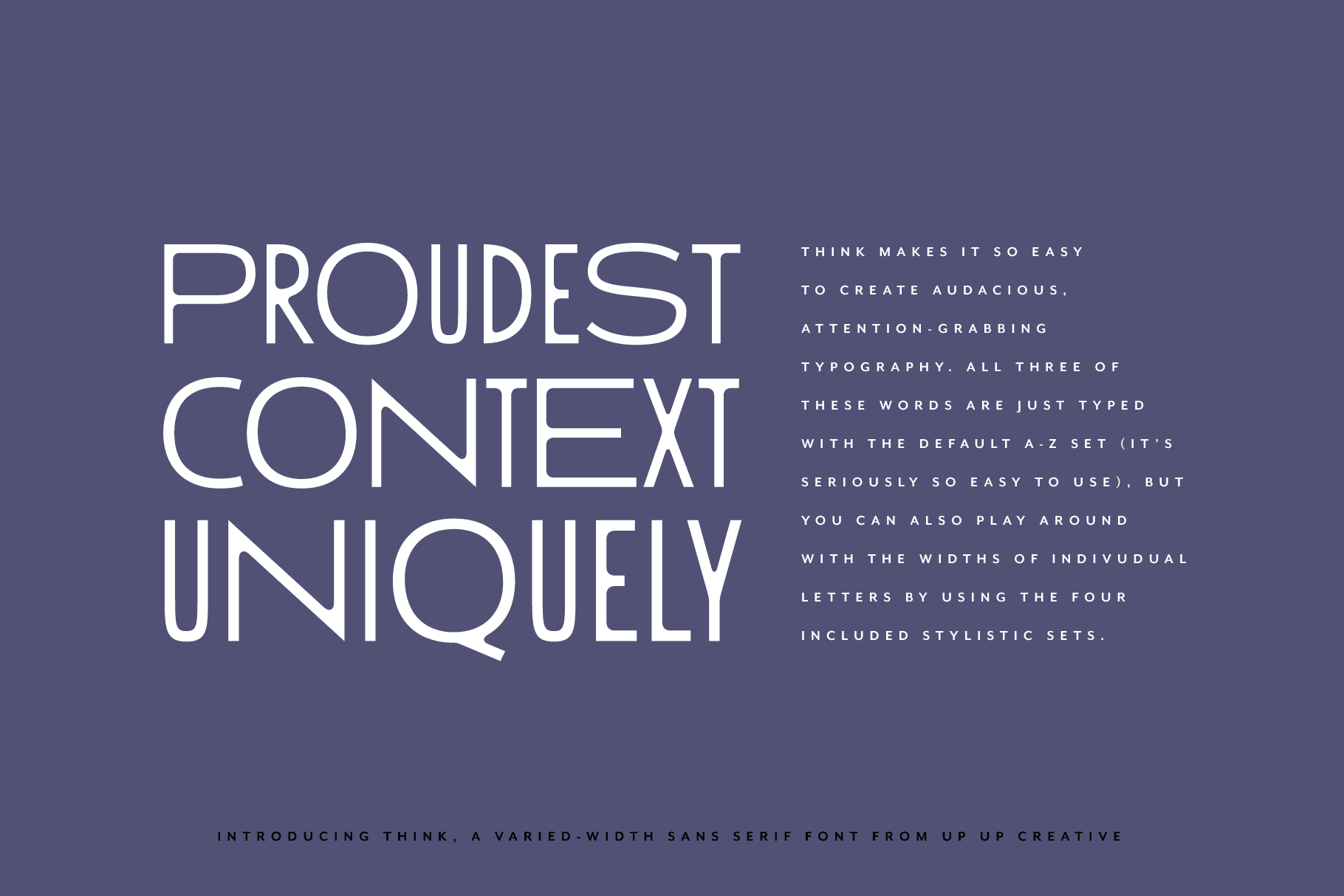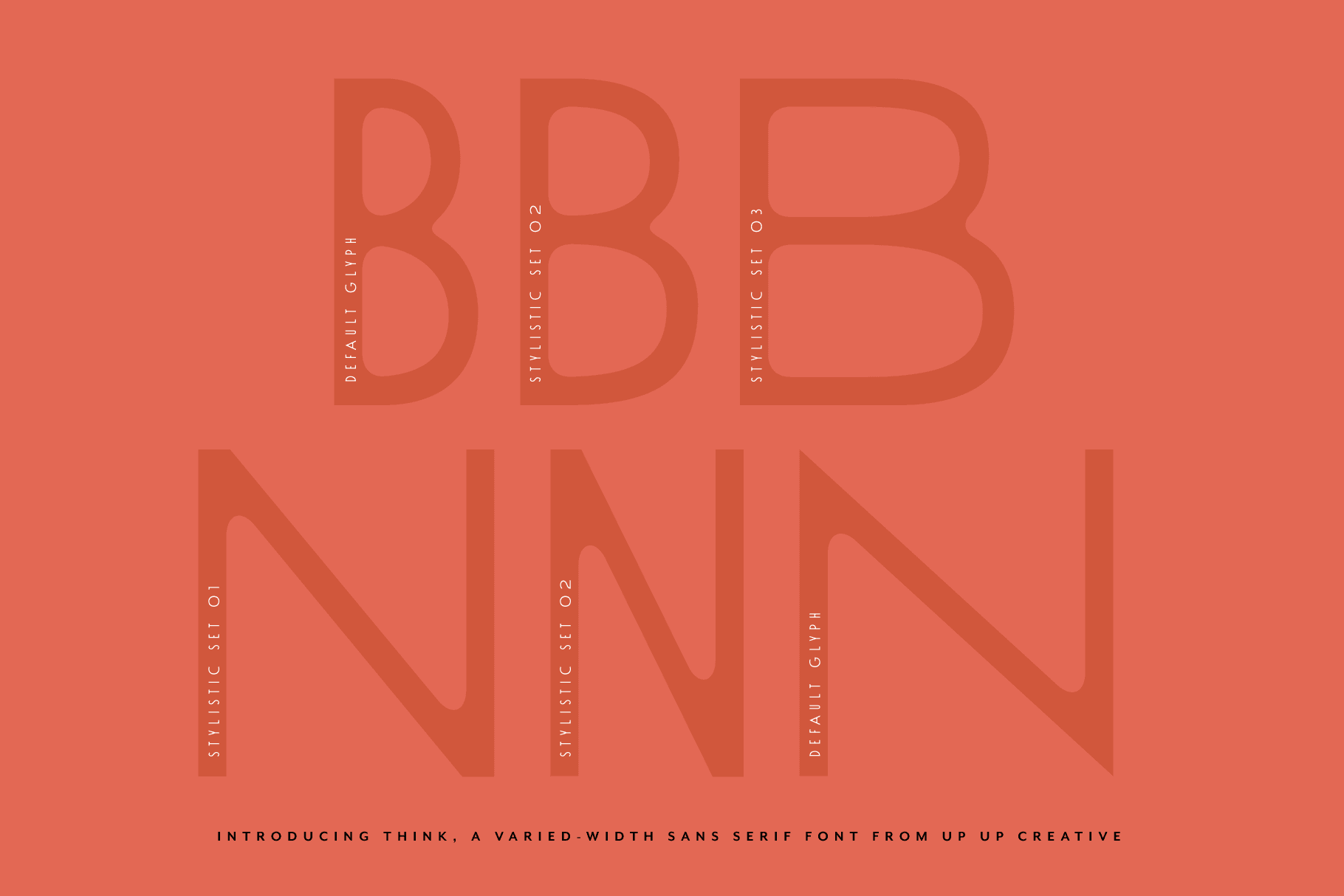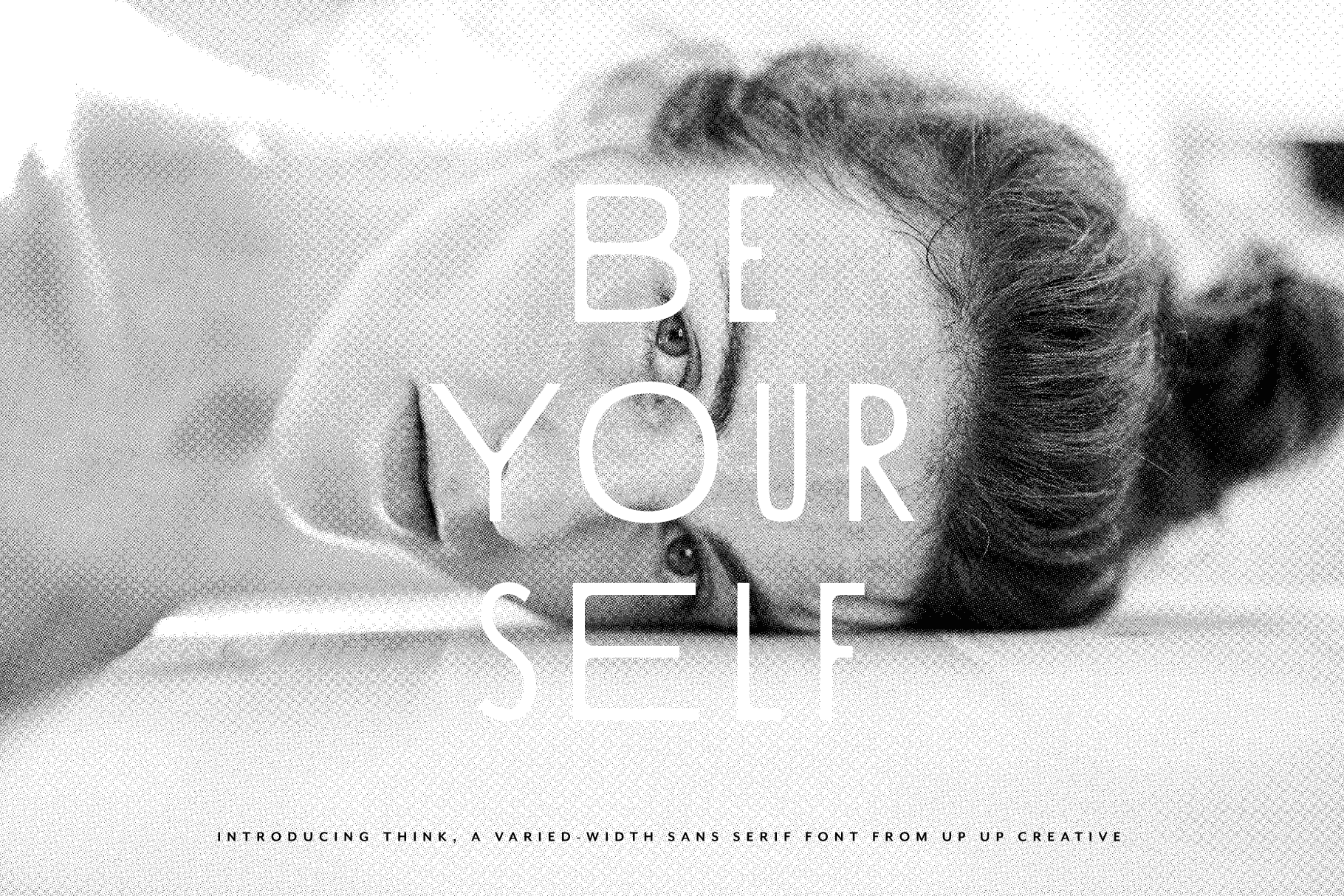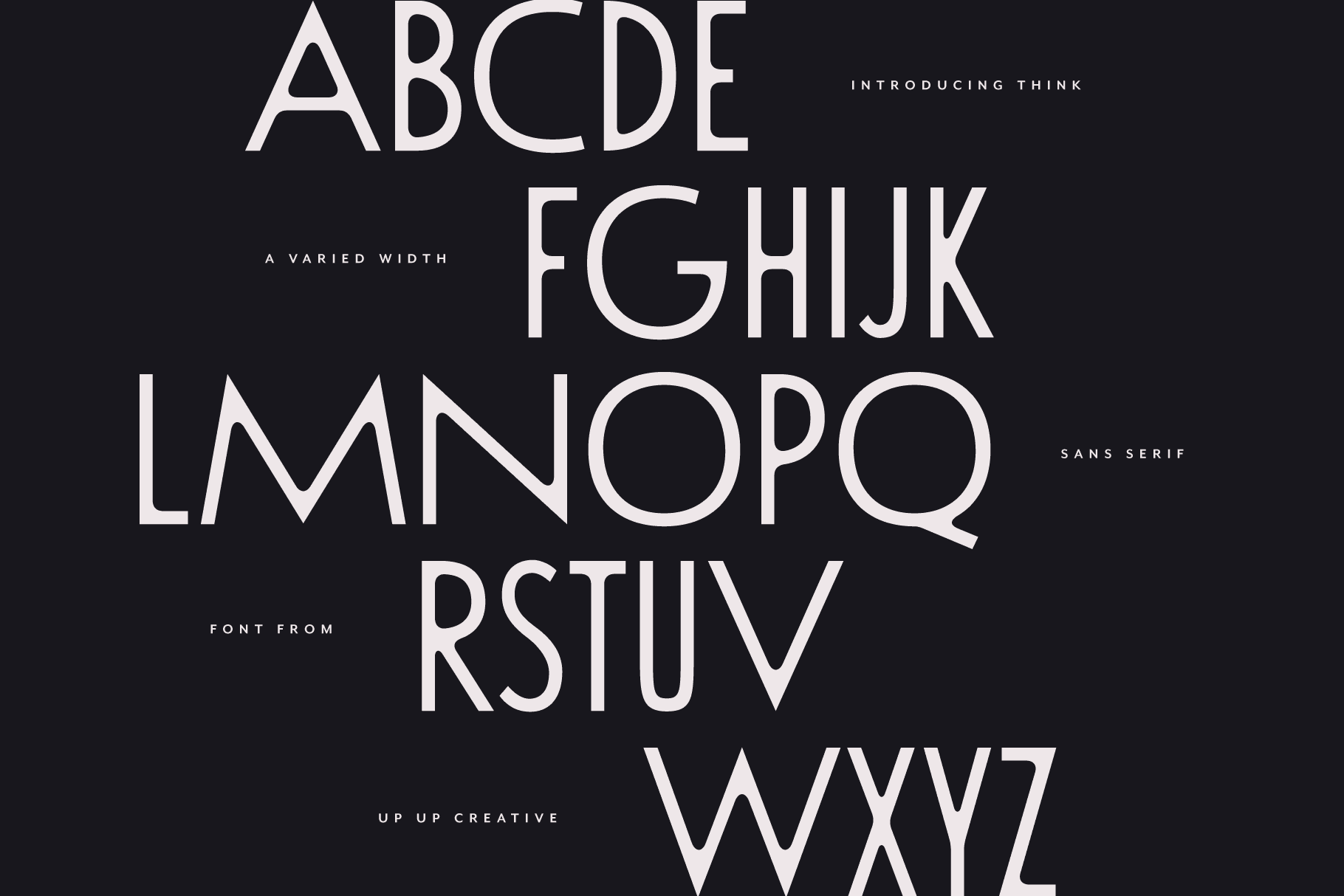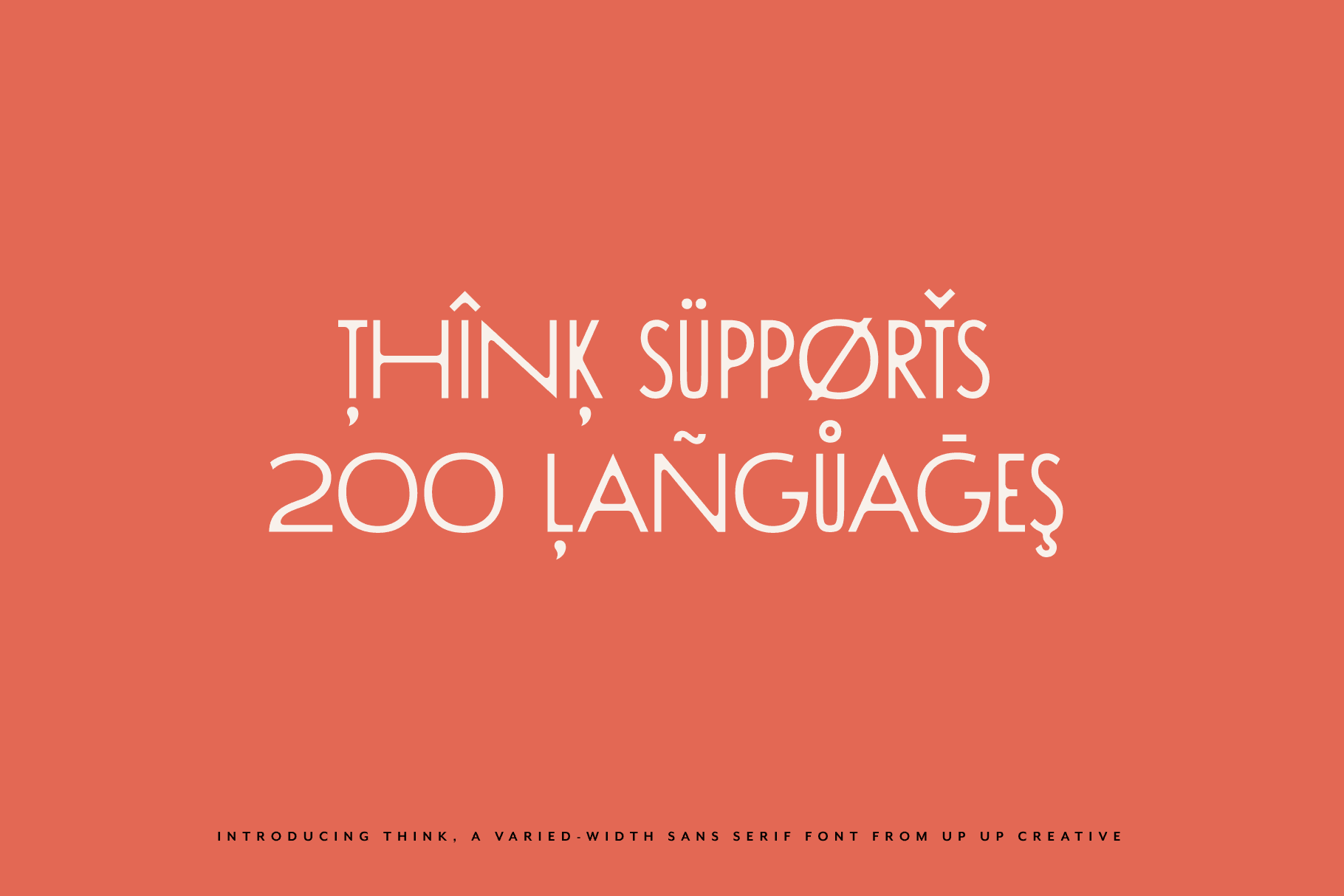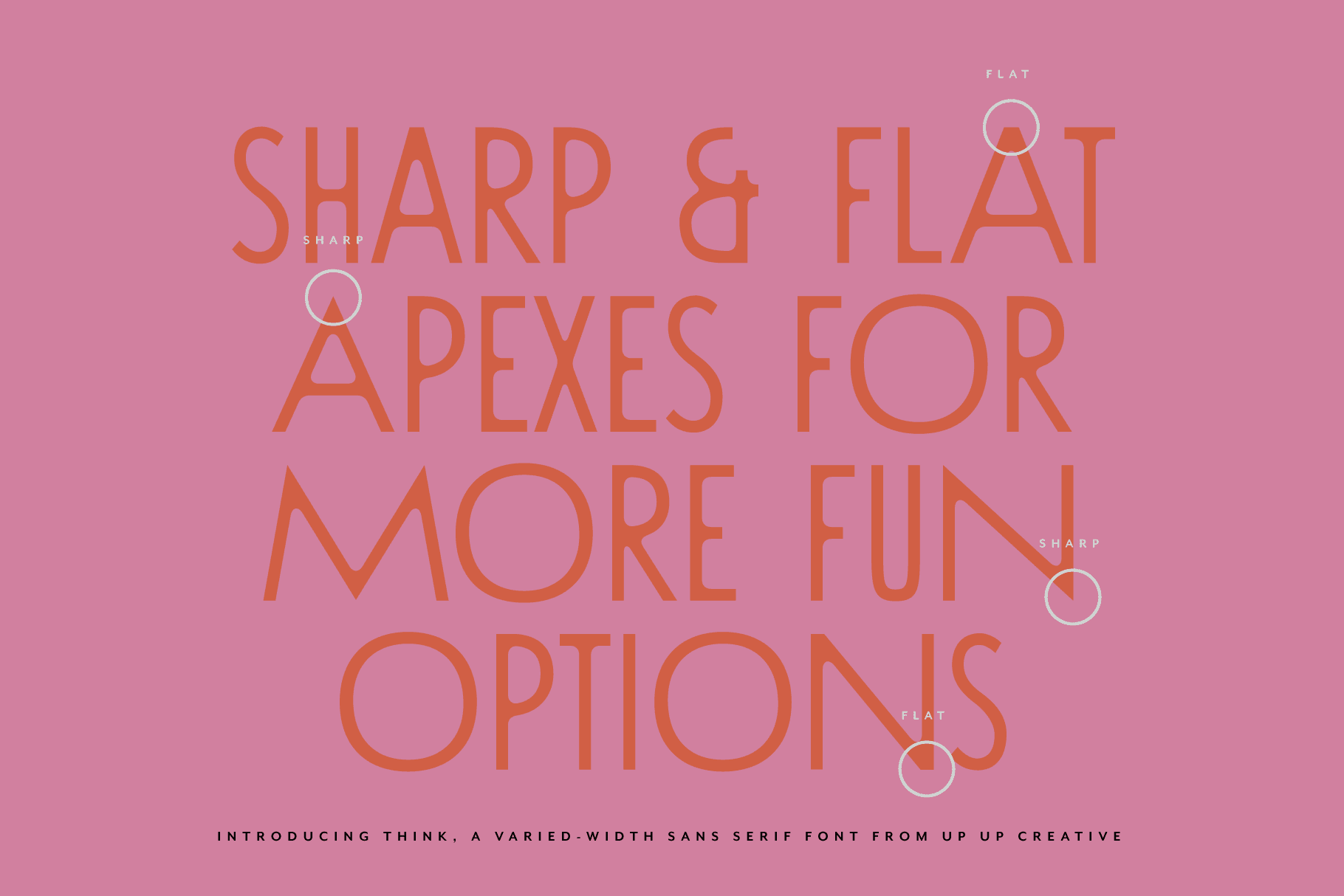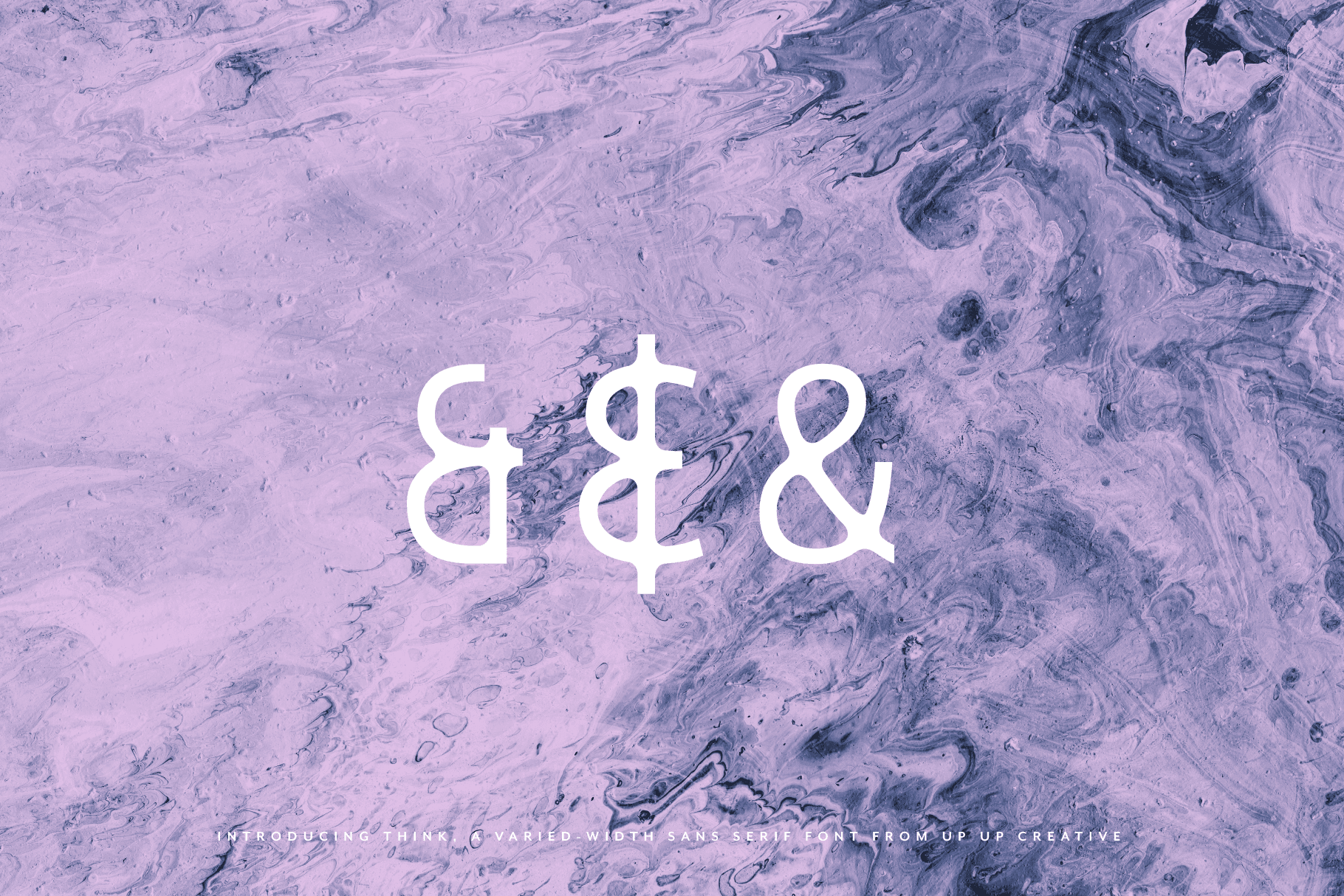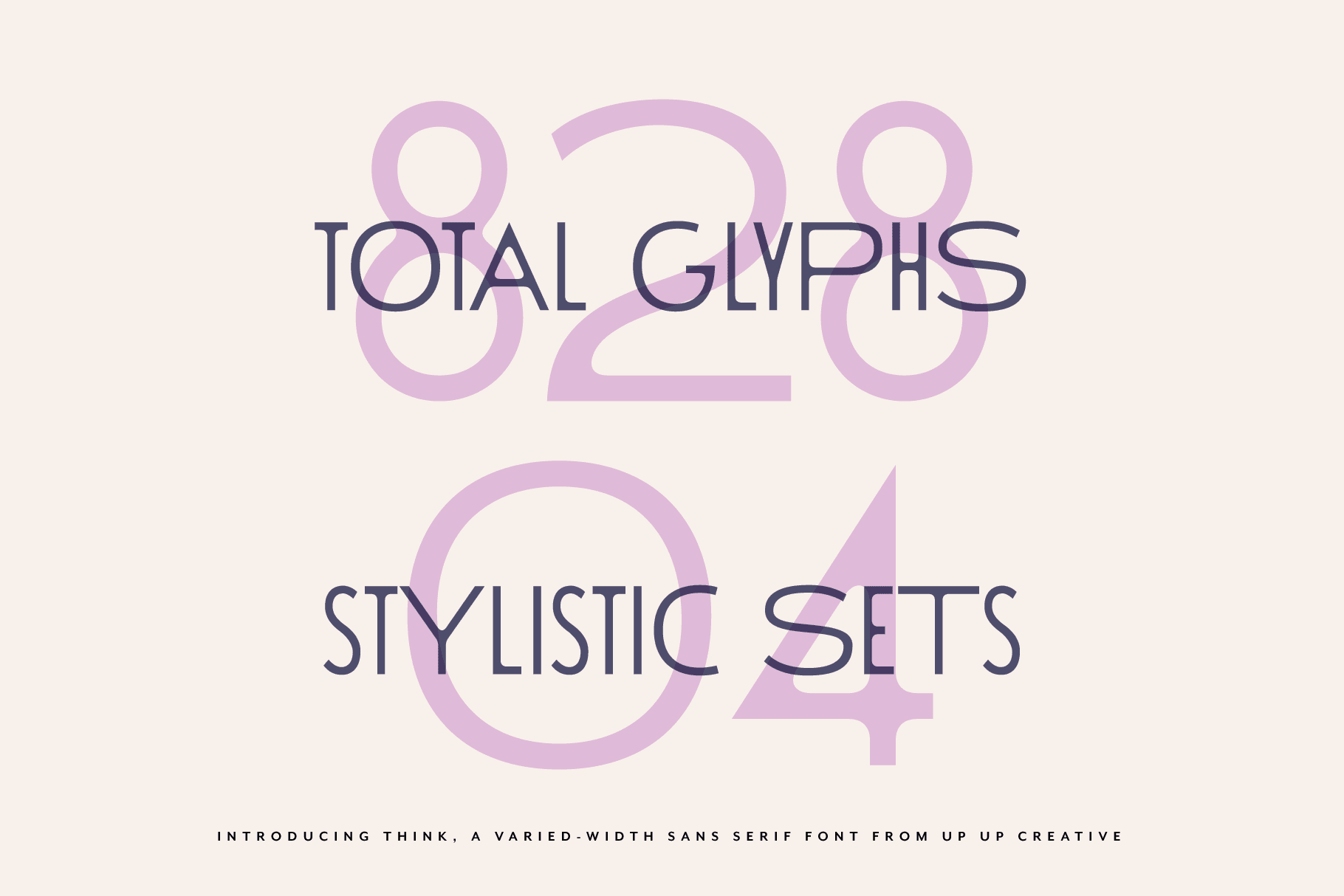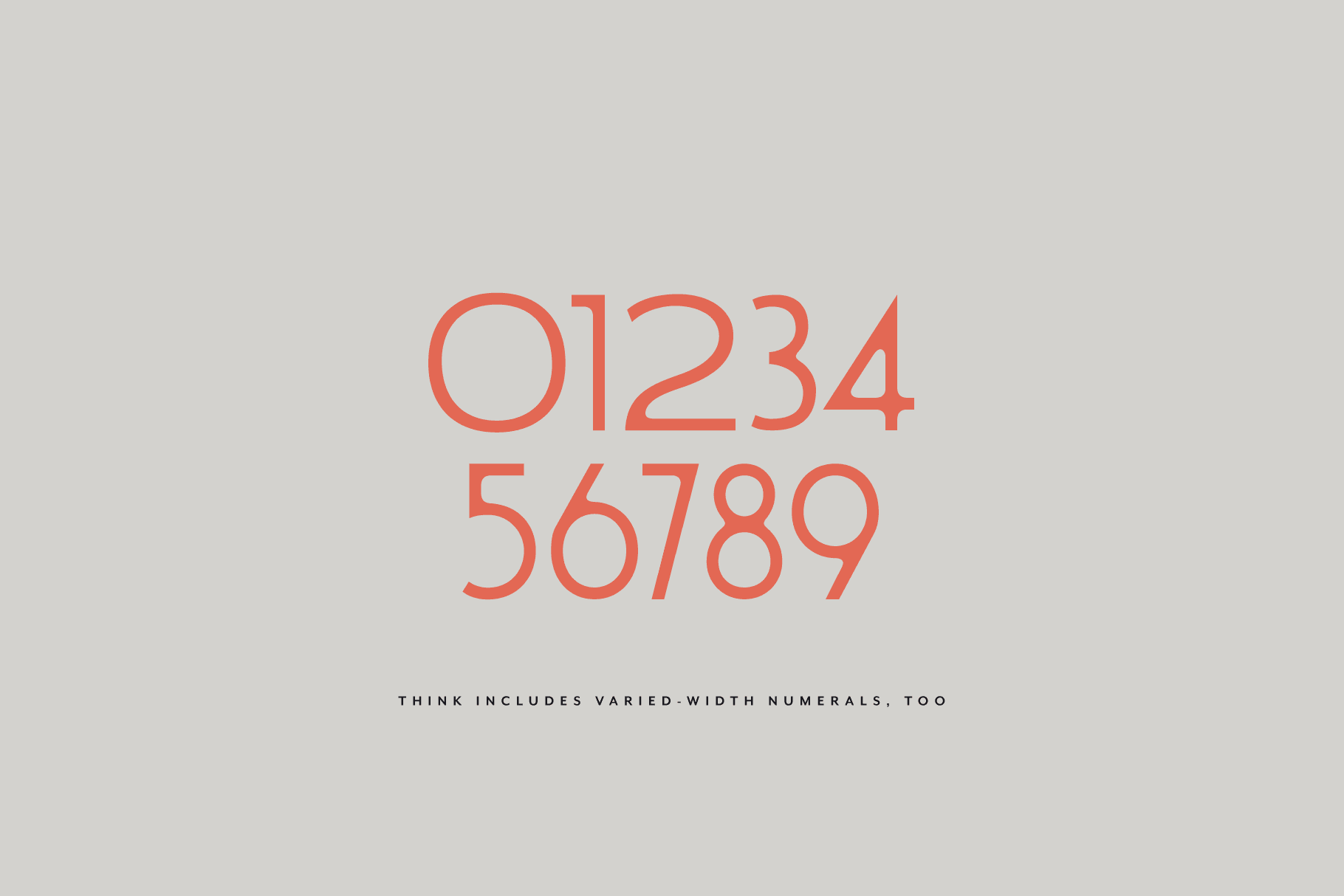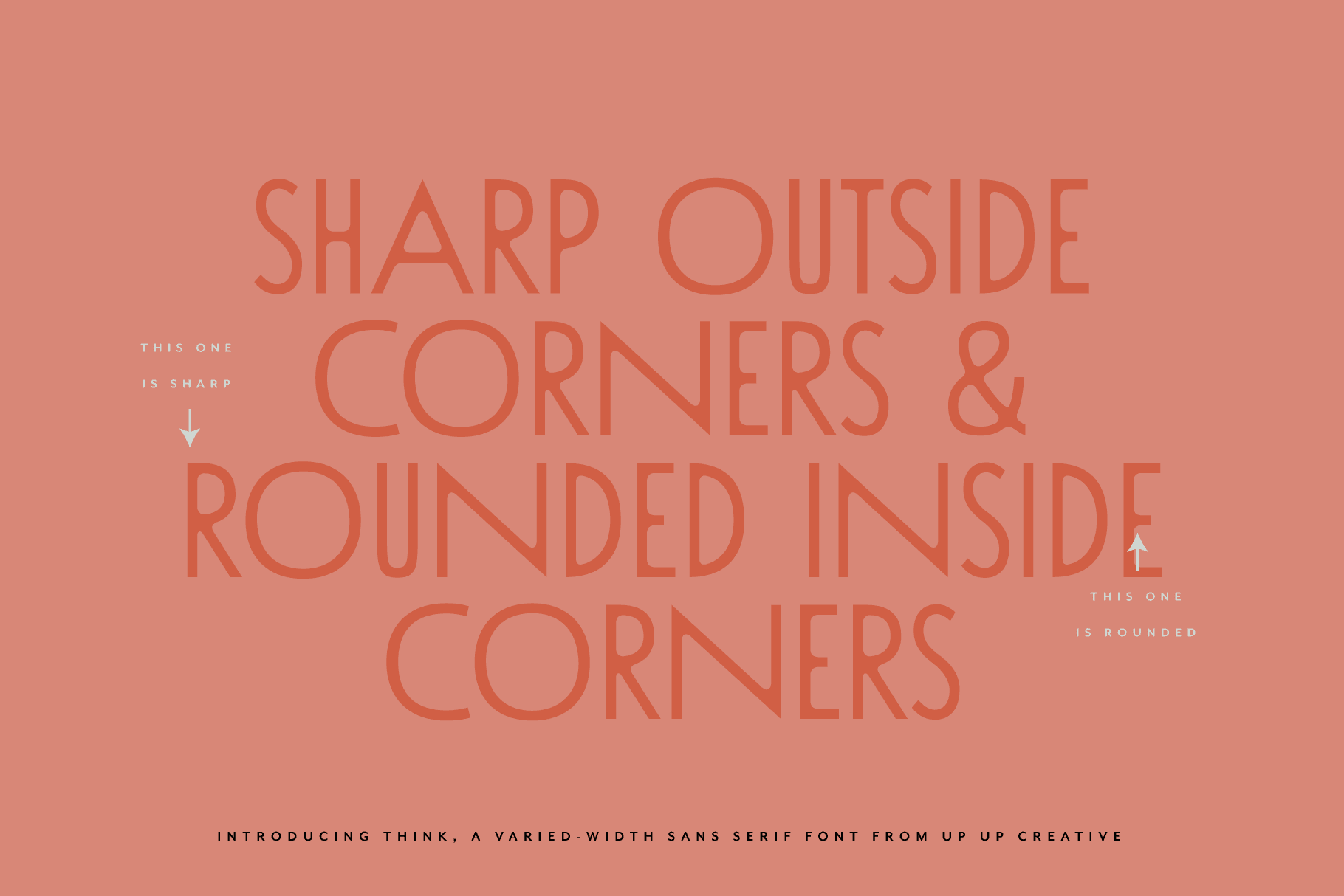
Think Sans Serif Font Family
THINK NOW HAS A FAMILY!
Think is a varied-width sans serif font with a personality that reveals itself on second look. What appears at first to be a straightforward all-caps mono-weight sans is actually doing something more considered: wide and narrow characters are paired deliberately to create a bold, optical rhythm that's immediately distinctive. Think is built for headlines, editorial design, monograms, branding, logos, and poster work.
The Think Family now includes three styles -- Think, Think Narrow, and Think Wide -- each designed to give you a different tool for different jobs. The original Think retains its full character set including sharp and flat apex alternates and four stylistic sets. Think Narrow and Think Wide each include 444 glyphs and one sharp-apex stylistic set.
- character variants
- stylistic sets
- localized forms (multi-language and multi-currency support)
- ordinals and superscripts
Includes 0 ligatures
- Includes 828 glyphs